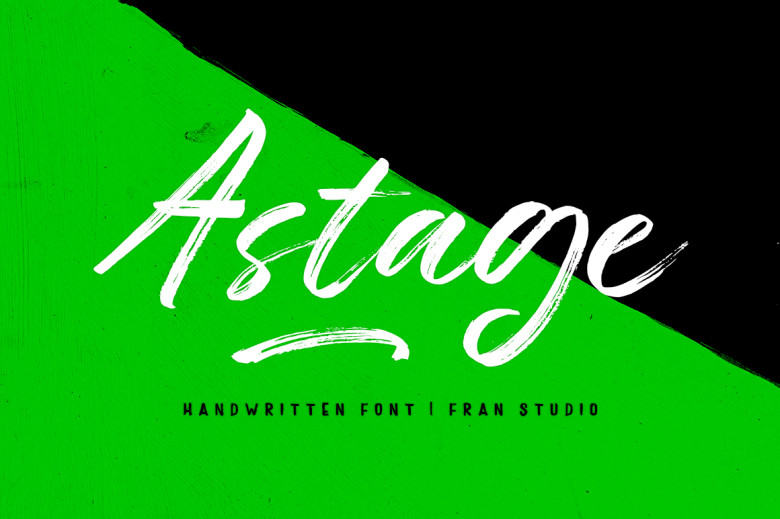
Astage Font
Astage is an informal yet playful handwritten font created using the brush pen. Simple yet odd in its design, this font makes an excellent addition to logos, branding campaigns, social media profiles, creative DIY projects or simply personal use.
Astage Brush Script Font